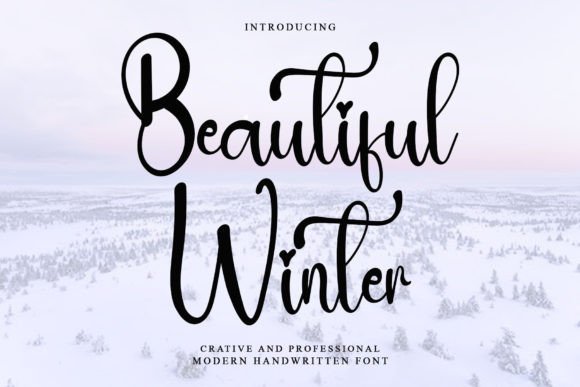
Discover the Magic of Beautiful Winter Font: Elevate Your Designs with a Timeless Handwritten Style
As the winter season approaches, designers and creatives are on the lookout for inspiration to create stunning visuals that capture the essence of the season. One of the most effective ways to add a touch of winter wonder to your designs is by using a beautiful winter font. In this article, we’ll introduce you to Beautiful Winter, a lovely and timeless handwritten font that’s perfect for creating eye-catching logos, branding, and quotes.
What is Beautiful Winter Font?
Beautiful Winter is a unique and elegant handwritten font that’s designed to add a personal touch to your designs. Every letter has a distinctive and beautiful touch, which will make your design come alive. The font’s flowing lines and curves evoke a sense of sophistication and refinement, making it perfect for a wide range of design applications.
What Can You Use Beautiful Winter Font For?
Beautiful Winter font is incredibly versatile and can be used for various design projects, including:
- Logo design: Create a memorable and impactful logo that stands out from the crowd.
- Branding: Develop a consistent visual identity for your brand that exudes elegance and sophistication.
- Quotes and typography: Add a touch of personality to your quotes and typography with a font that’s both beautiful and easy to read.
- Stationery and packaging: Elevate your stationery and packaging designs with a font that’s both stylish and professional.
Why Choose Beautiful Winter Font?
So, what sets Beautiful Winter font apart from other fonts? Here are just a few benefits of using this stunning font:
- Unique and distinctive: Every letter has a unique and beautiful touch that will make your design stand out.
- Elegant and sophisticated: The font’s flowing lines and curves evoke a sense of refinement and luxury.
- Easy to read: Despite its elegant style, Beautiful Winter font is incredibly easy to read, making it perfect for body text and quotes.
- Highly versatile: The font can be used for a wide range of design applications, from logos and branding to stationery and packaging.
Tips for Using Beautiful Winter Font in Your Designs
To get the most out of Beautiful Winter font, here are a few design tips to keep in mind:
- Experiment with font sizes: Play around with different font sizes to create visual interest and hierarchy in your design.
- Pair with complementary fonts: Combine Beautiful Winter font with complementary fonts to create a unique and harmonious typography.
- Use creative formatting: Take advantage of the font’s elegant lines and curves by using creative formatting techniques, such as italicizing or bolding certain words or phrases.
Beautiful Winter Font Pairing Suggestions
To create a stunning typography, it’s essential to pair Beautiful Winter font with complementary fonts. Here are a few suggestions:
- Open Sans: A clean and modern sans-serif font that pairs perfectly with Beautiful Winter’s elegant style.
- Lato: A sleek and sophisticated sans-serif font that complements Beautiful Winter’s flowing lines and curves.
- Merriweather: A classic serif font that adds a touch of elegance and sophistication to Beautiful Winter font.
In conclusion, Beautiful Winter font is a timeless and elegant handwritten font that’s perfect for creating stunning designs that capture the essence of the winter season. With its unique and distinctive touch, this font is sure to elevate your designs and make them stand out from the crowd. Whether you’re a designer, entrepreneur, or creative, Beautiful Winter font is an excellent choice for any design project.